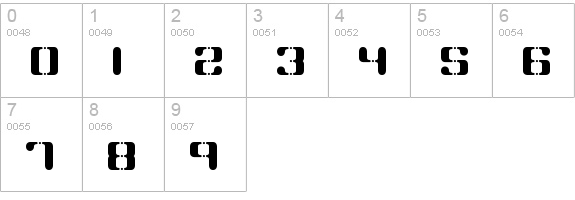
Syndrome BRK Font Details
Syndrome BRK font is a modern and stylish typeface that exudes a sense of contemporary sophistication. Its sleek lines and sharp edges make it perfect for a wide range of design projects, from branding to digital media. The font's unique design allows it to stand out while maintaining a sense of professionalism and elegance. What makes Syndrome BRK font even more appealing is that it is completely free to download. This means that you can enhance your projects with this exceptional font without worrying about any costs. You can easily access Syndrome BRK font at FontsMarket.com, where you can download it with just a few clicks. Whether you're working on a website, poster, logo, or any other design project, Syndrome BRK font is sure to elevate your work to the next level. Its versatility and contemporary appeal make it a must-have for any designer looking to make a statement. Download Syndrome BRK font today and see the difference it can make in your designs.